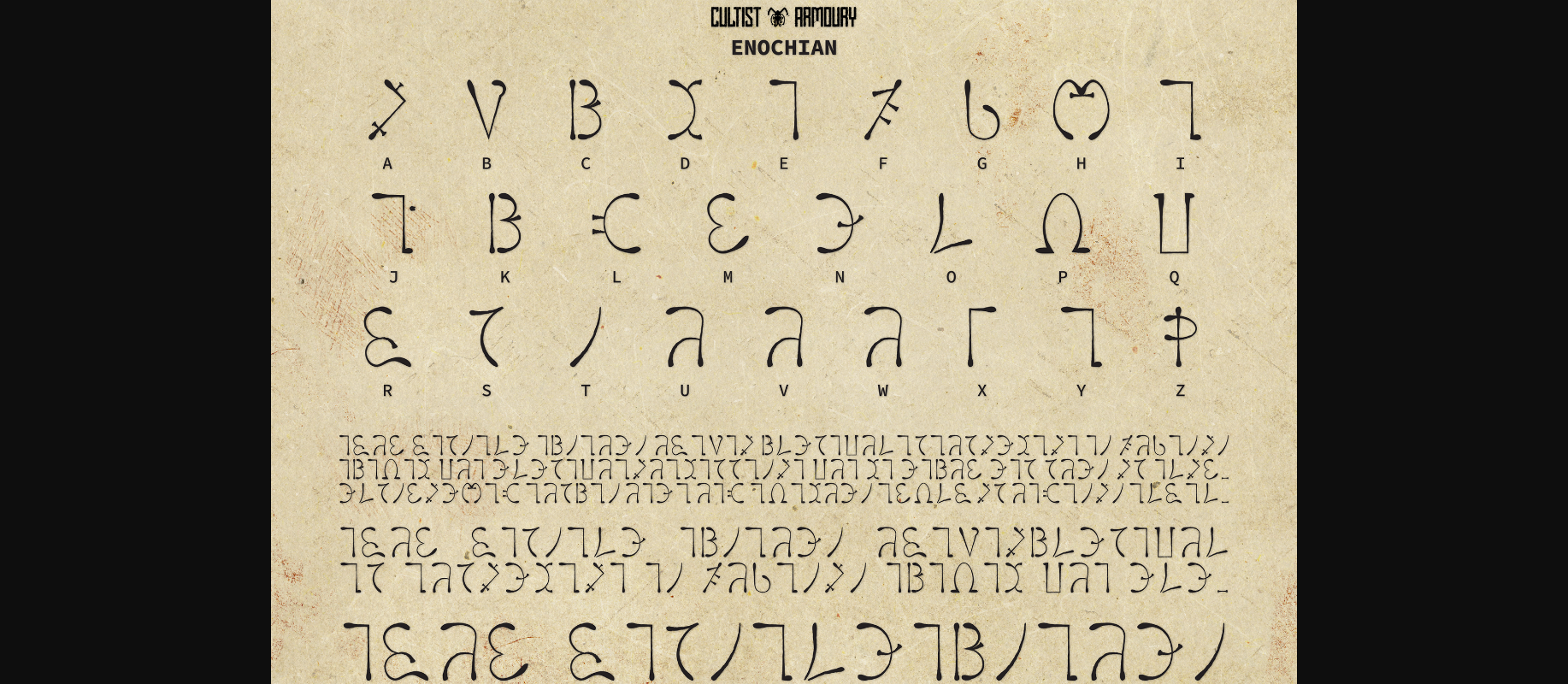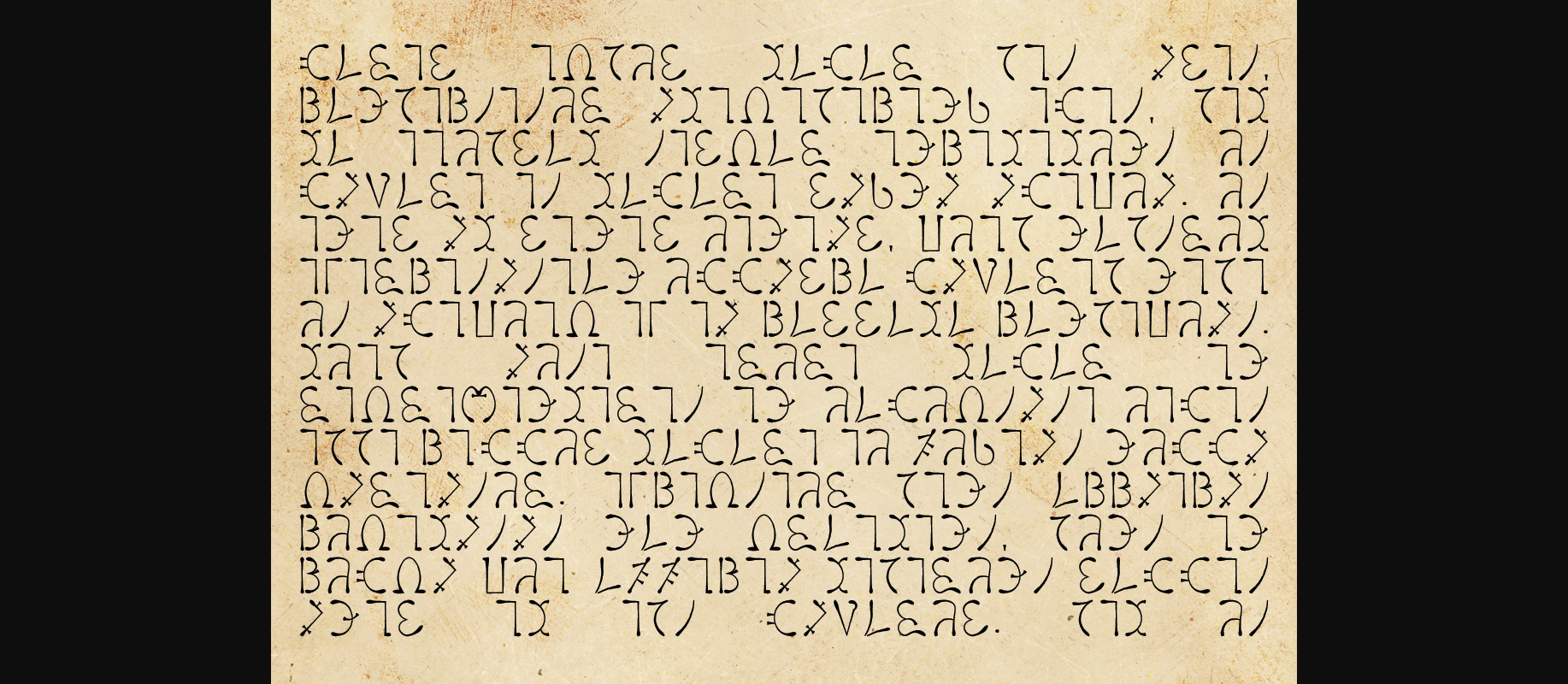
About Enochian Font
Enochian is an original decorative font based on the angelical language recorded in the private journals of John Dee and his colleague Edward Kelley in late 16th-century England.
It is perfect for fictional grimoires, occult props, and handouts from roleplaying games. It may also be used for early style printed texts, emphasis and subtitles, headlines and other display uses.